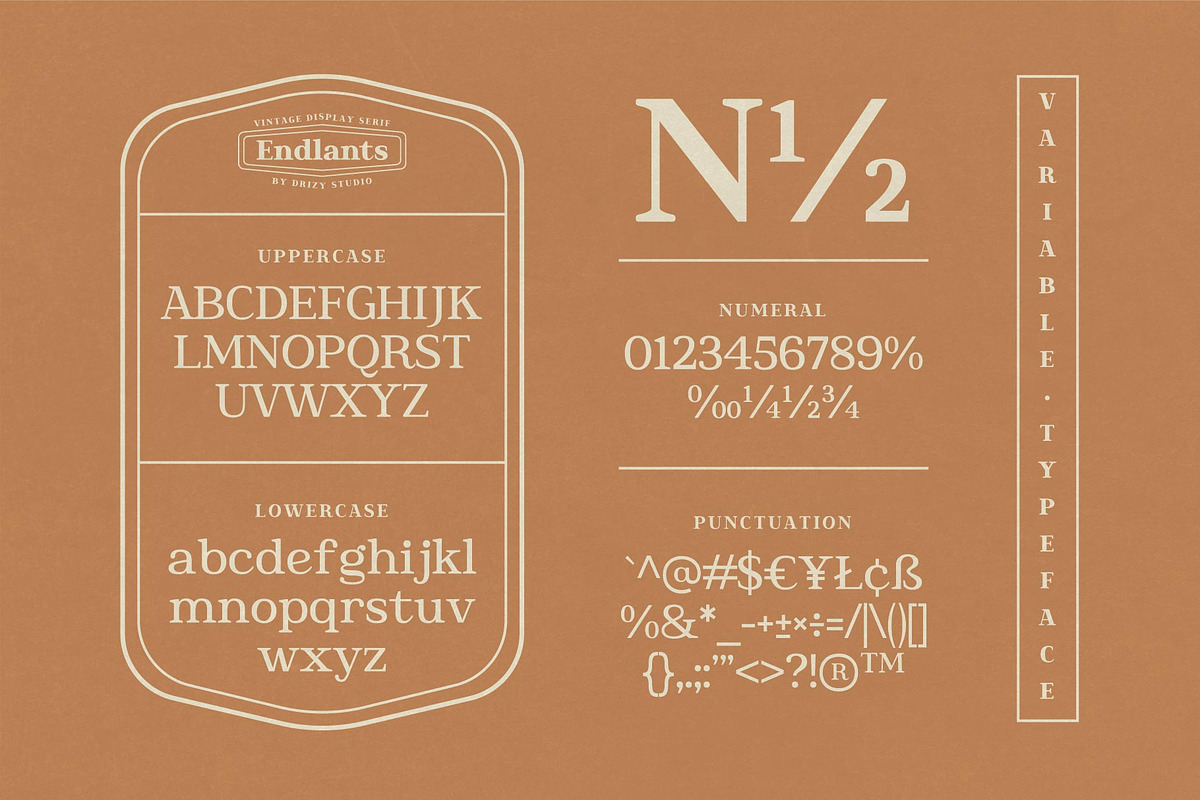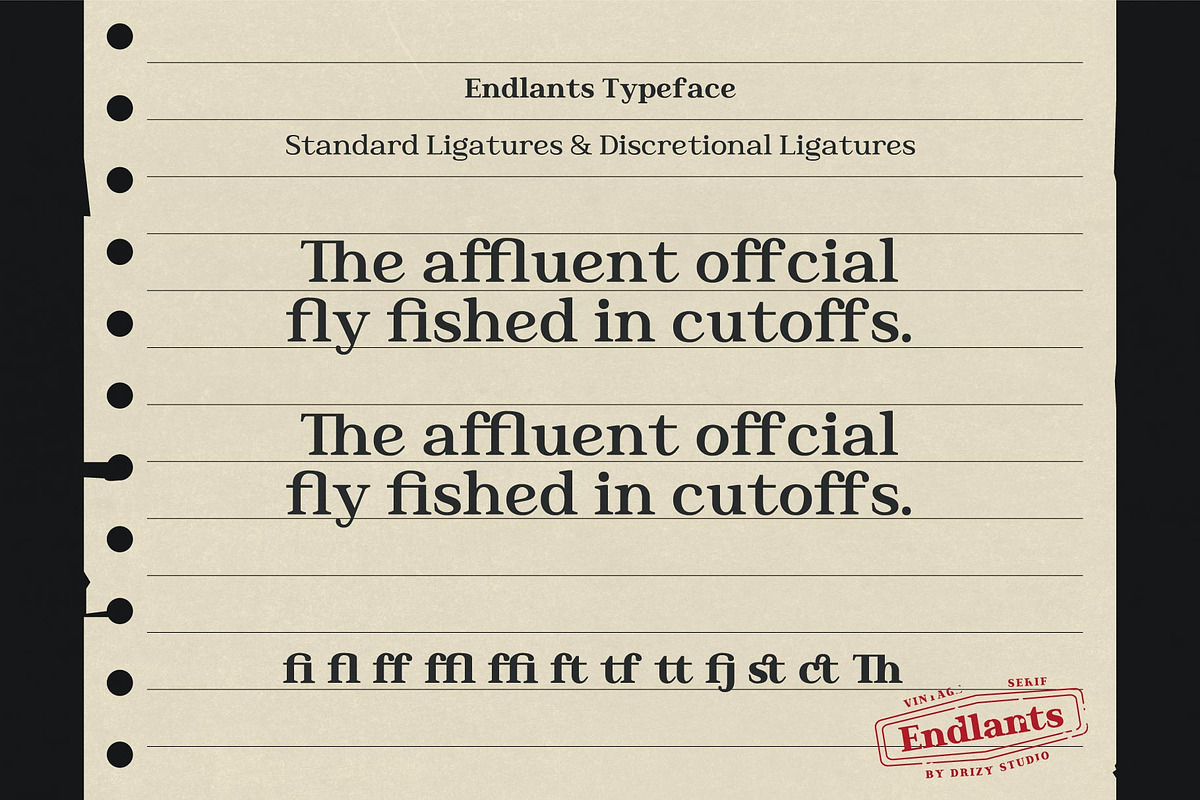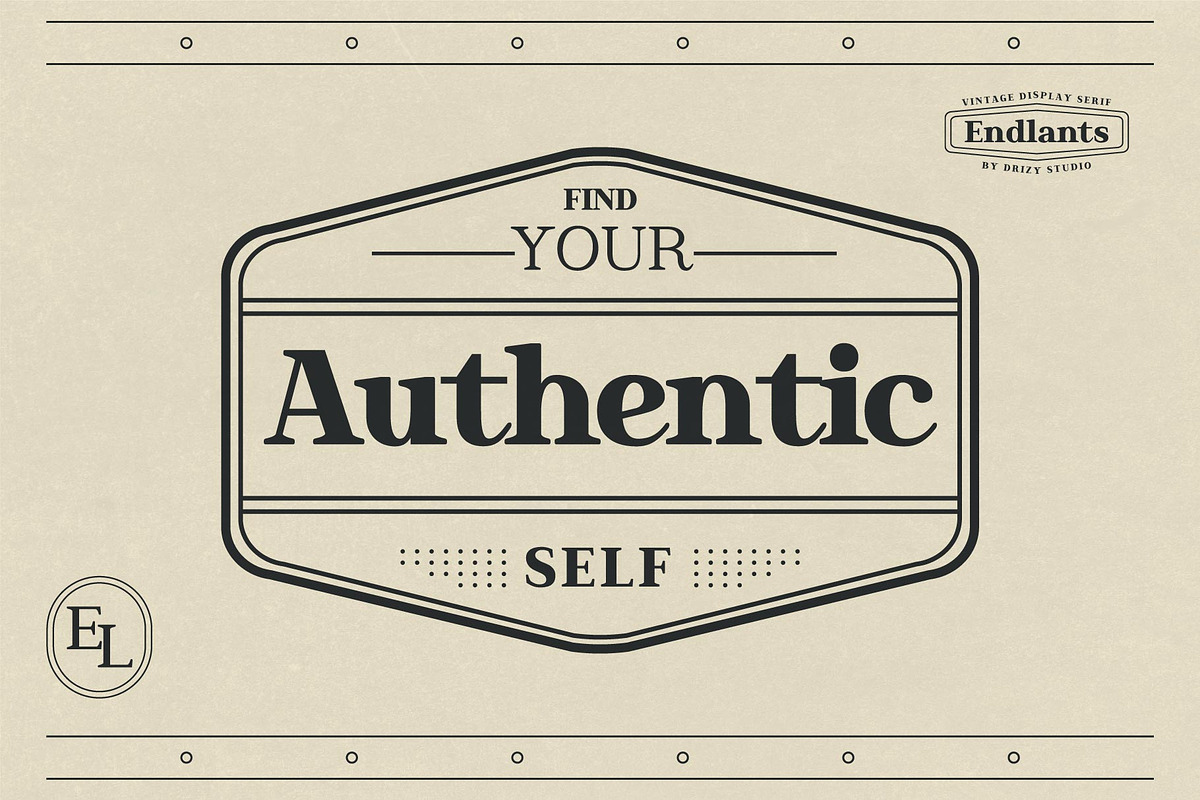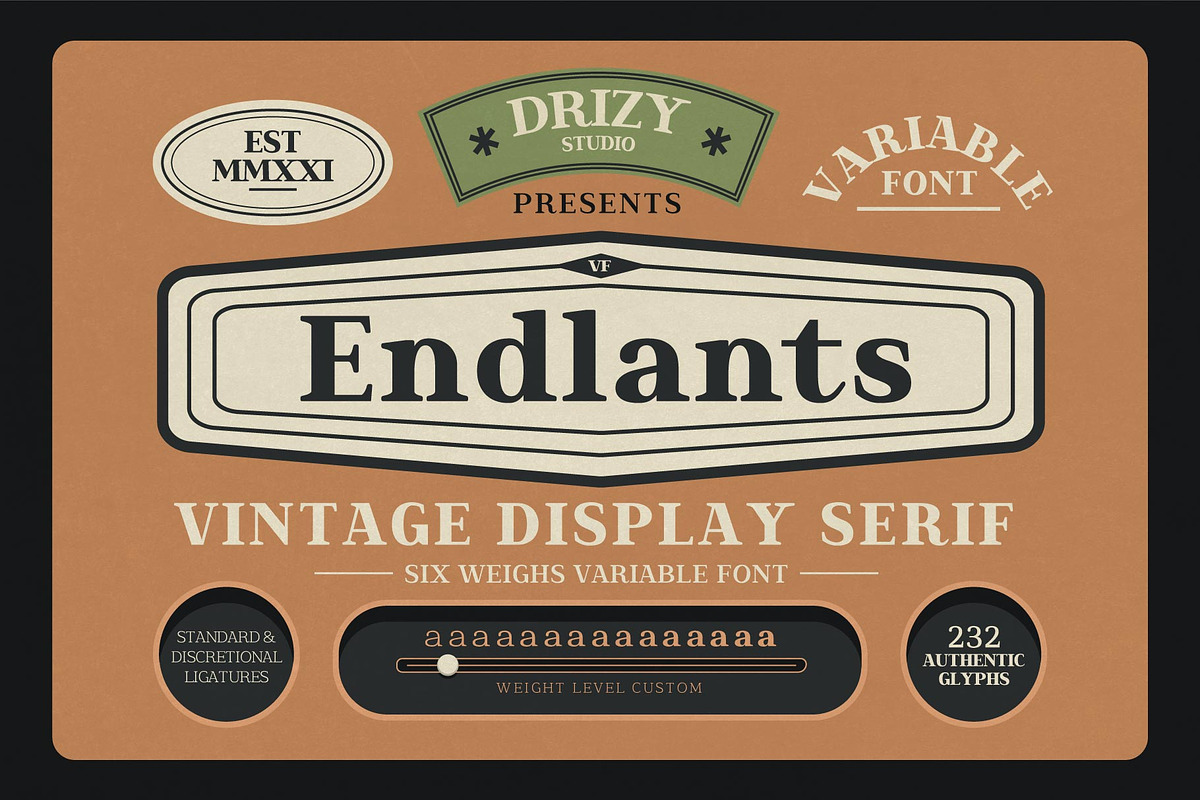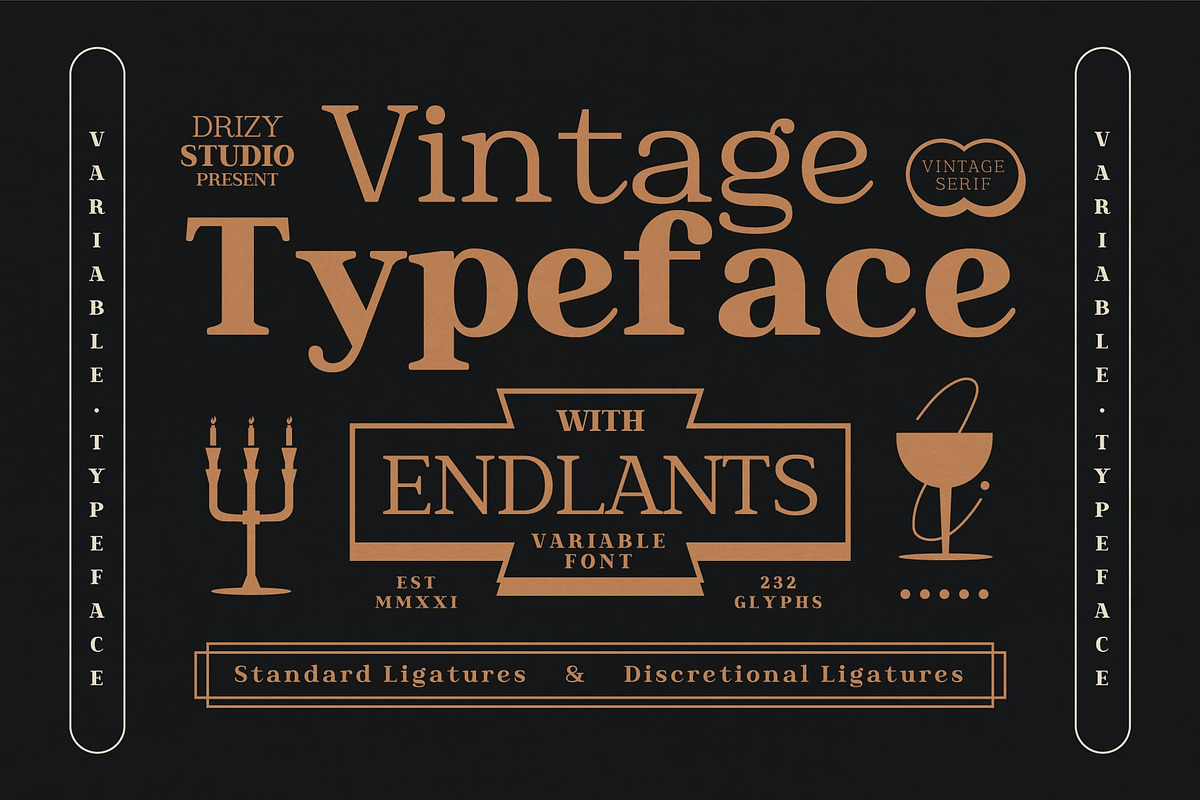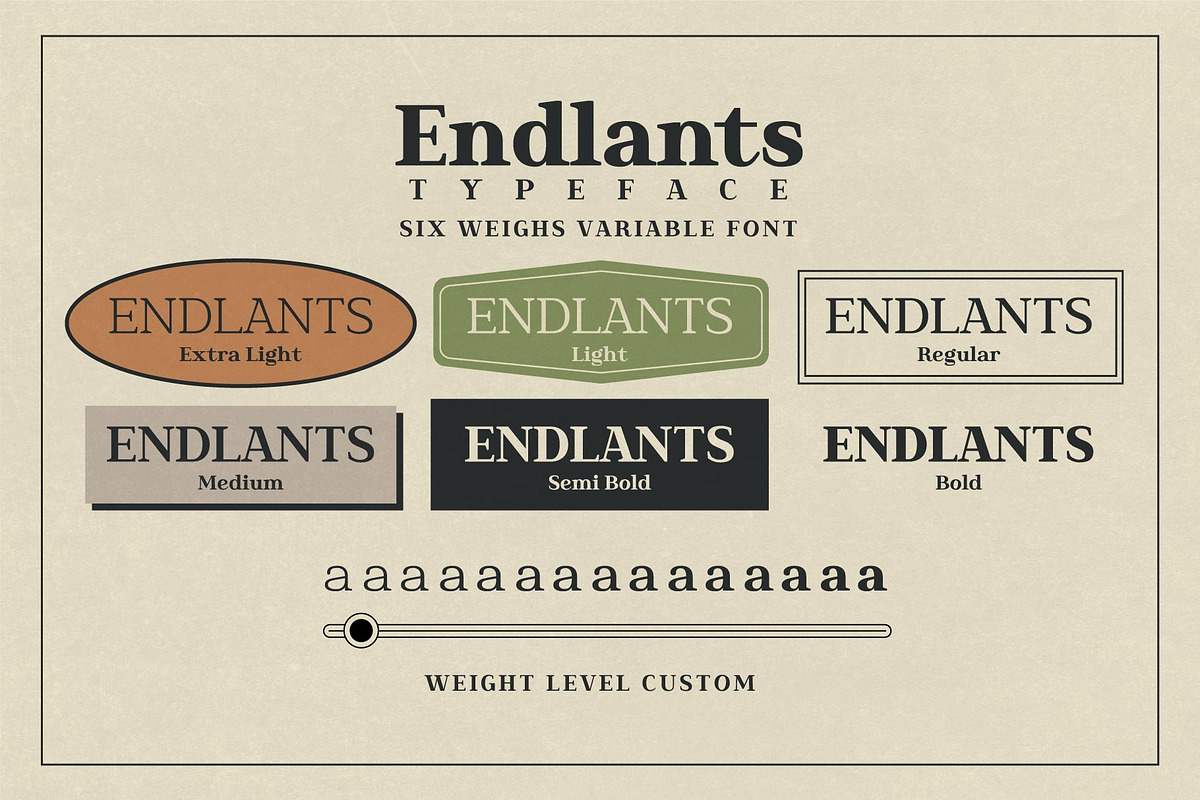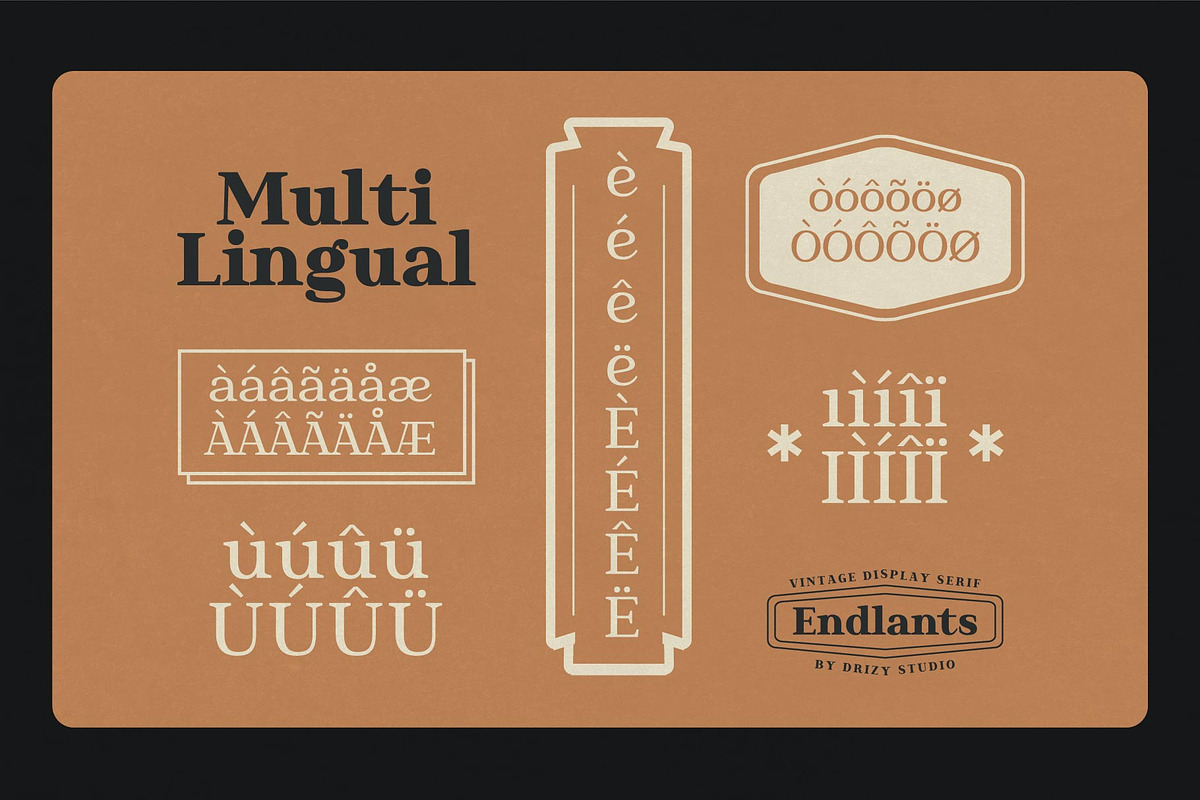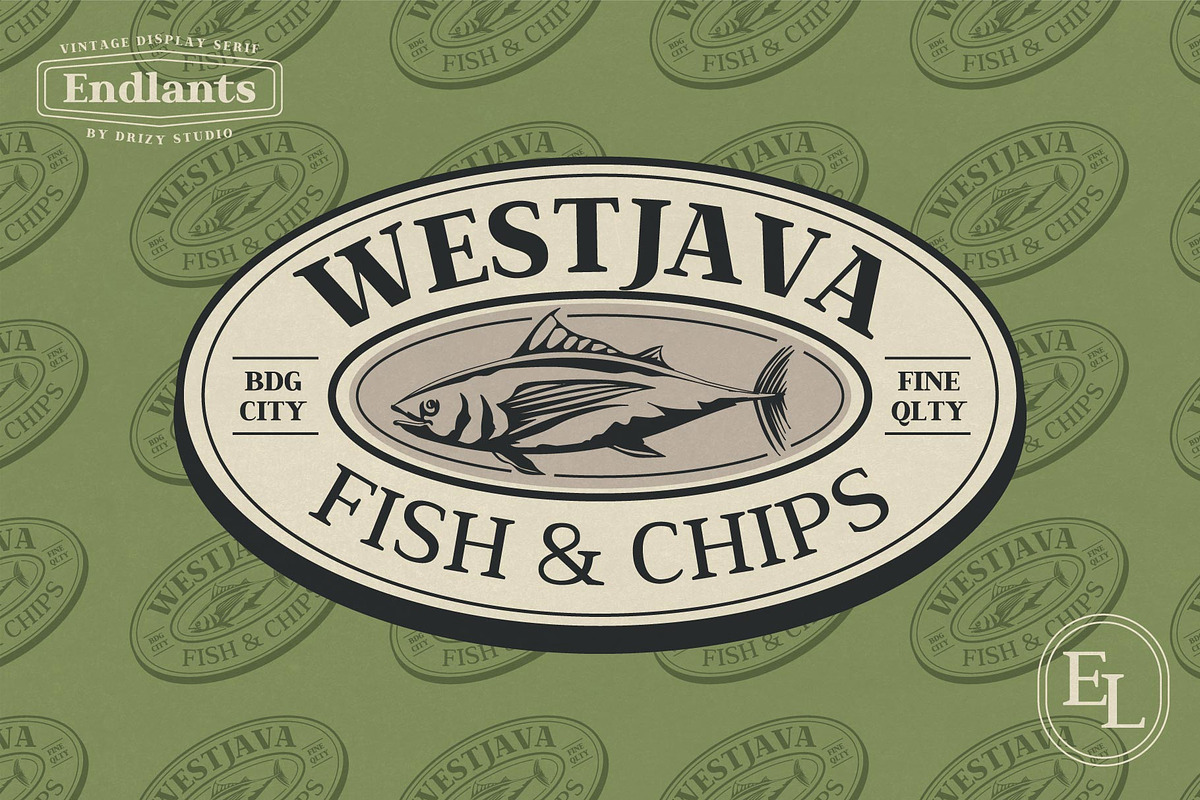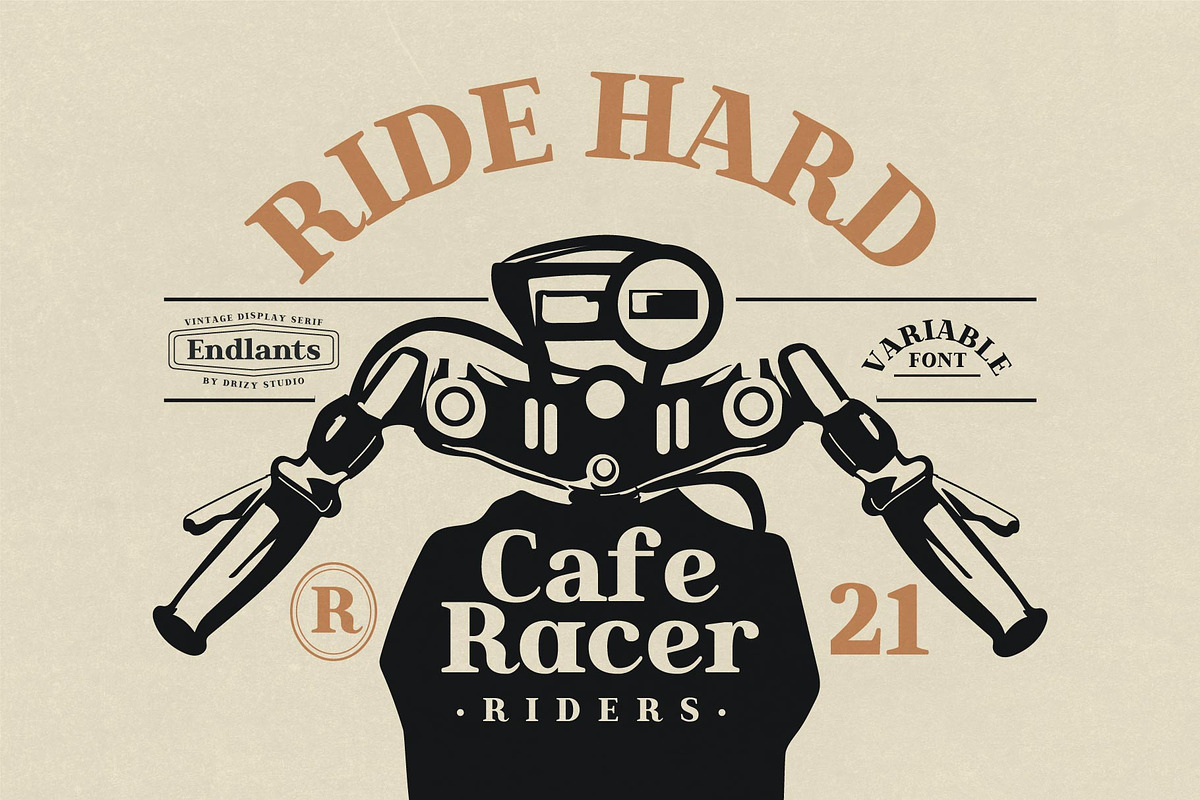
Endlants
Introducing Endlants is Vintage Display Serif. Endlants Font family comes in various sizes from Light to Bold, giving you the freedom to get creative with this font. With strong characters in the size of Bold, it is very suitable for use for sign displays and other sizes you can use as needed for your project.